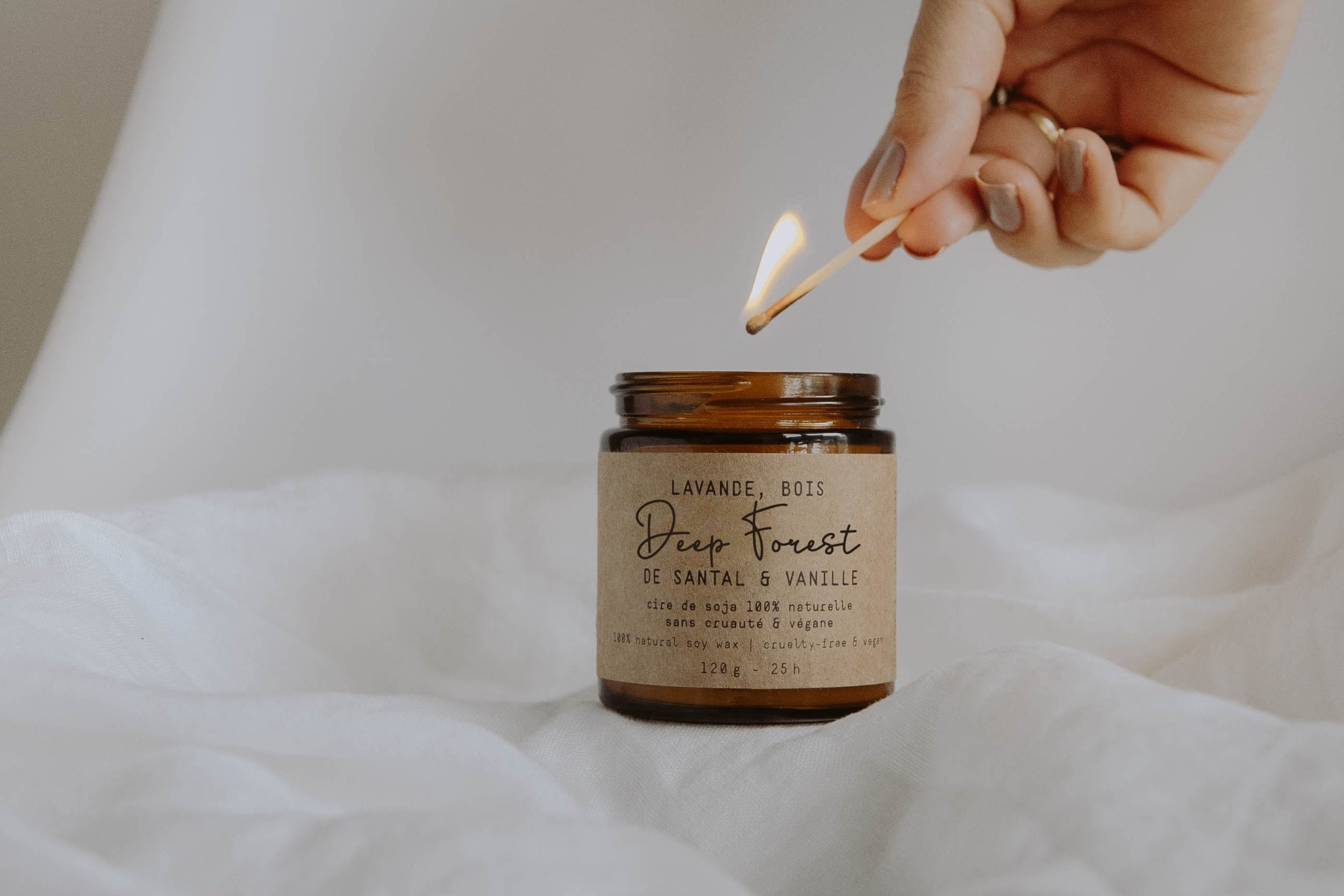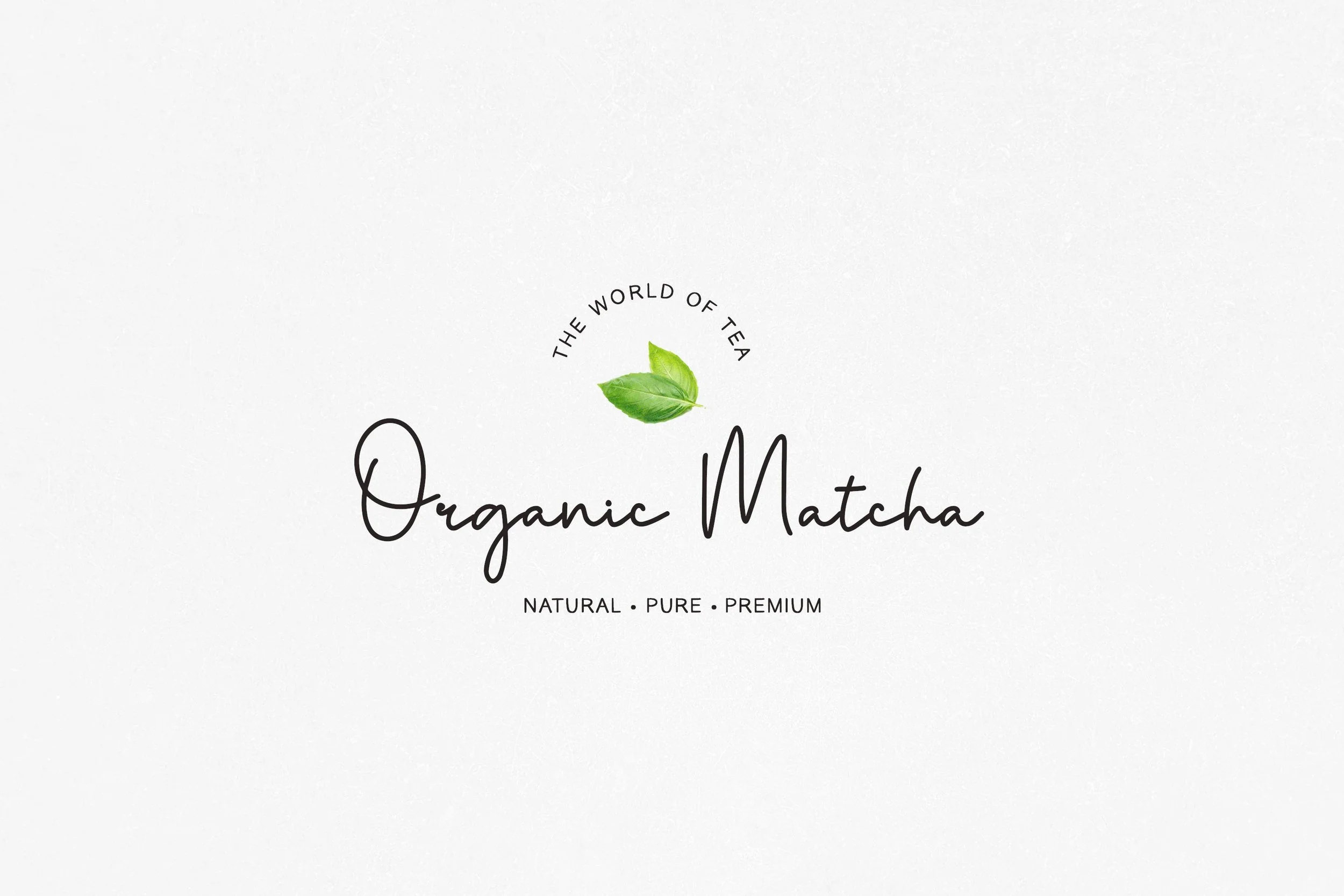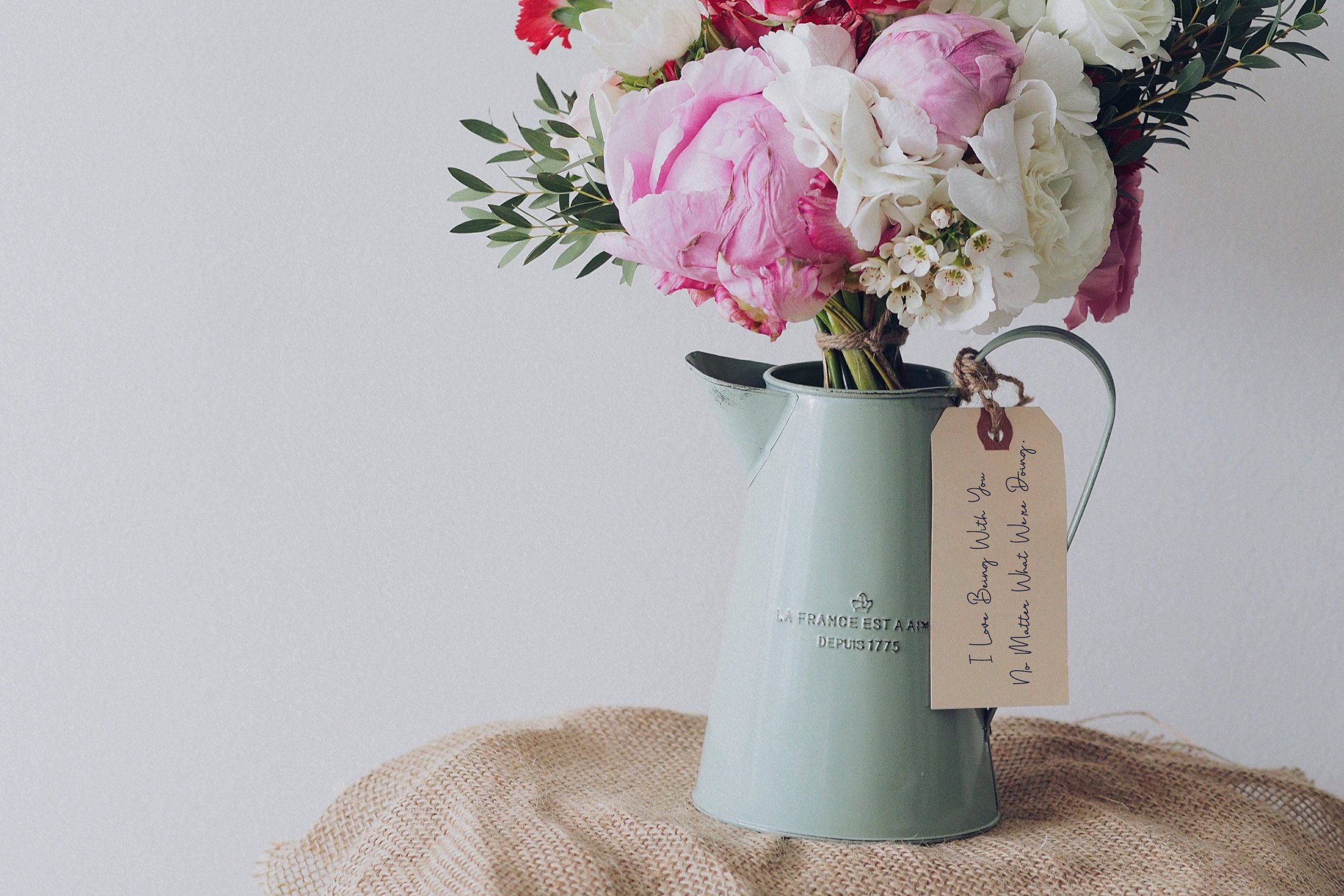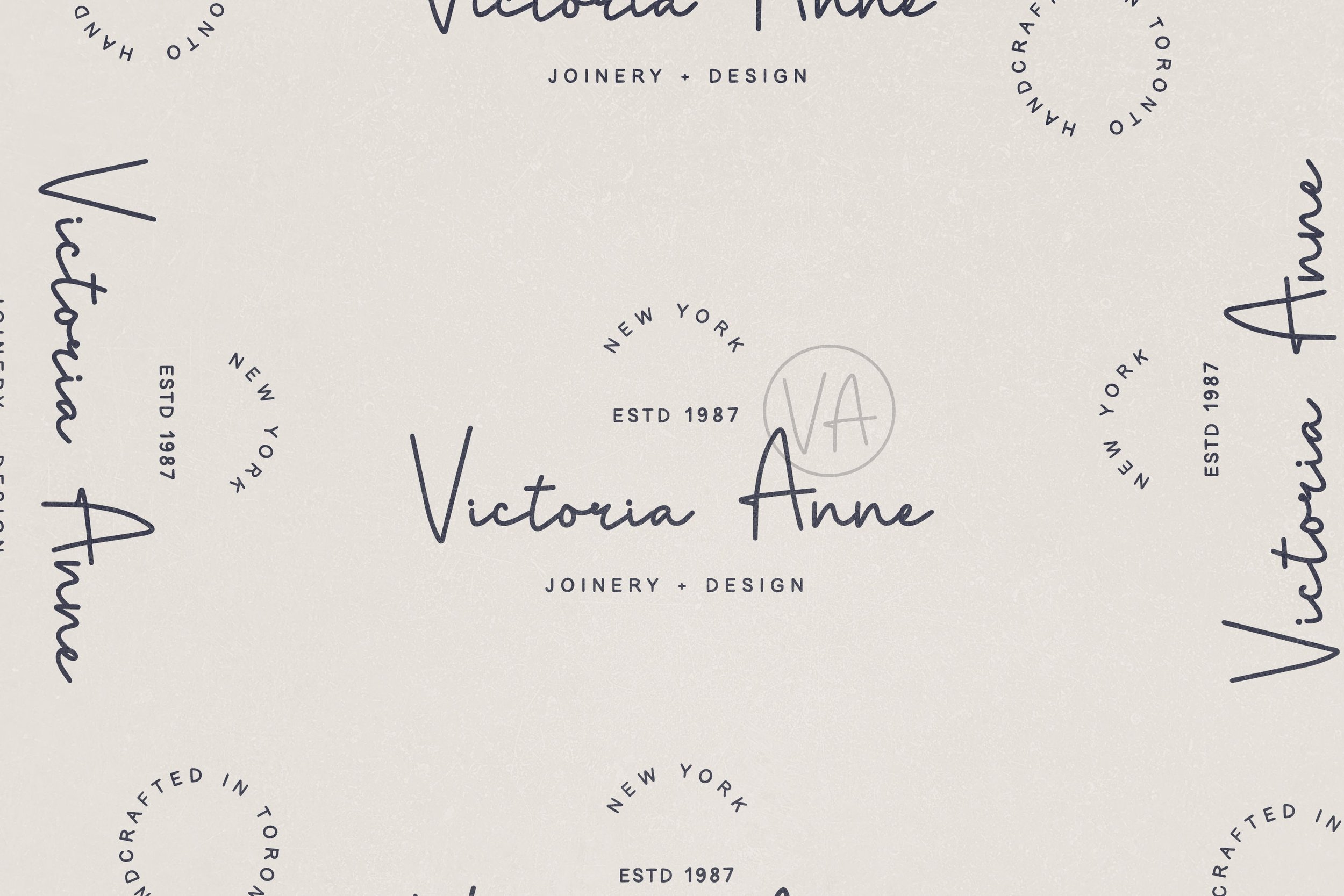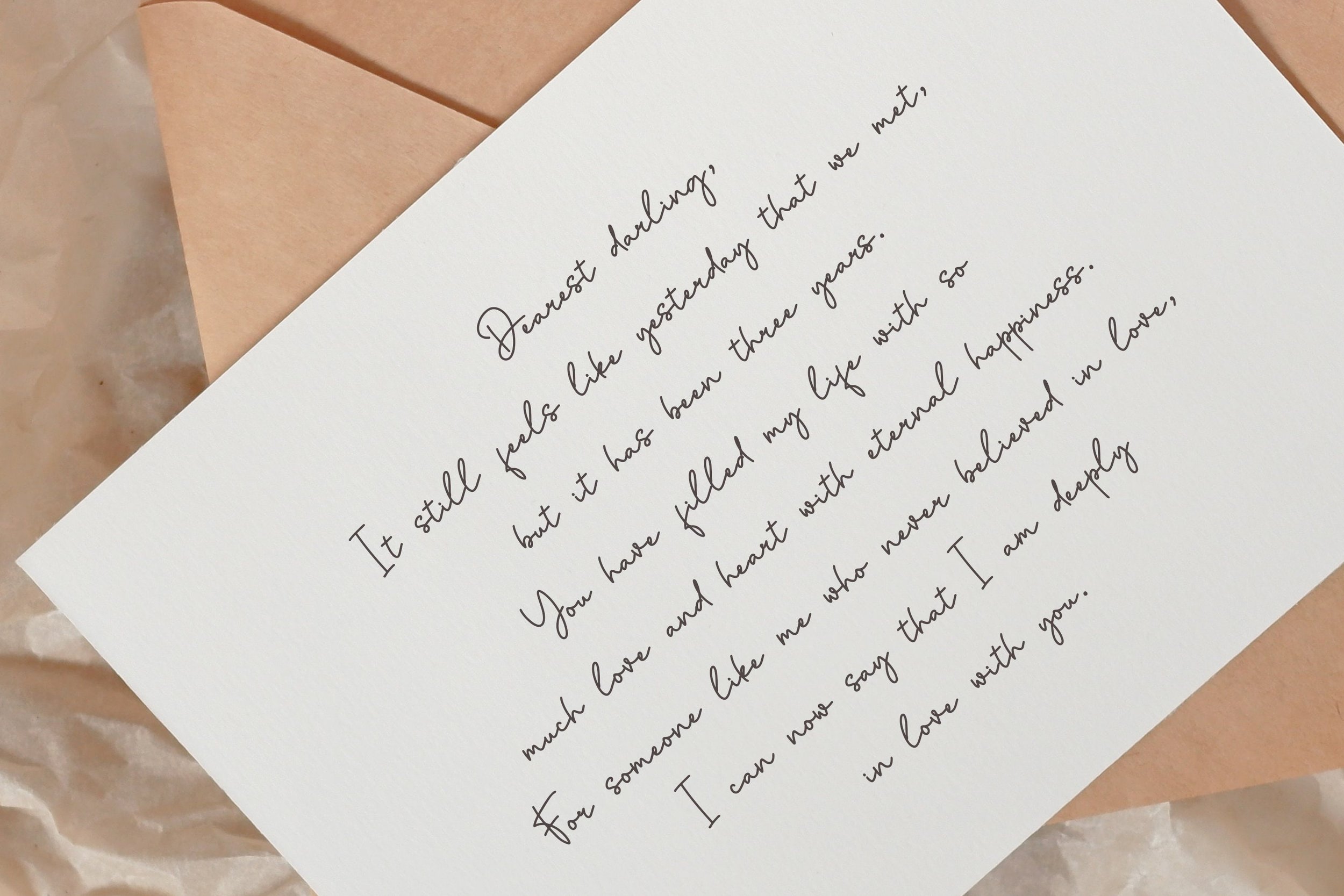
Stealing Beauty - Sweet Signature Font
Stealing Beauty is a sweet handwritten script. Pairing sans serif font is https://www.etsy.com/listing/1259665483/francesca-handlettered-sans-sweet